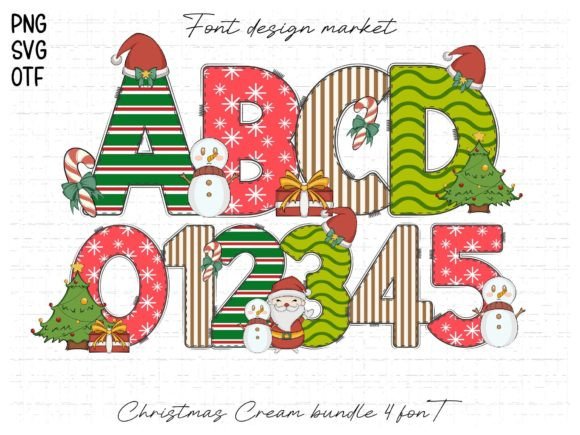
Deck the halls of your digital designs with Christmas Cream Font, the delightful and cheery font that exudes the magic of the yuletide season. This font family bursts with color, bringing a festive charm to your Christmas-themed projects, shirts, crafts, and cards. Effortlessly elevate your designs with Christmas Cream's enchanting touch, transforming them into captivating works of art.
With its vibrant hues and playful spirit, Christmas Cream Font is the perfect companion for spreading holiday cheer through your creative endeavors. Its black version seamlessly integrates with Cricut Design Space and other cutting machines, while the color version adds a pop of merrymaking to your designs in PhotoShop, Illustrator, Silhouette, and Inkscape.
Unleash your creativity and let Christmas Cream Font guide you through a wonderland of festive designs. From heartwarming Christmas cards that convey your heartfelt greetings to eye-catching holiday-themed shirts that spread joy wherever you go, Christmas Cream Font is your trusty companion in crafting unforgettable holiday memories.
So, dive into the Christmas spirit with Christmas Cream Font and let your imagination soar. Create designs that capture the essence of the season, designs that evoke the laughter and warmth of family gatherings, and designs that make your heart dance with holiday cheer. Let Christmas Cream Font be your artistic wand, transforming your digital canvas into a festive masterpiece.